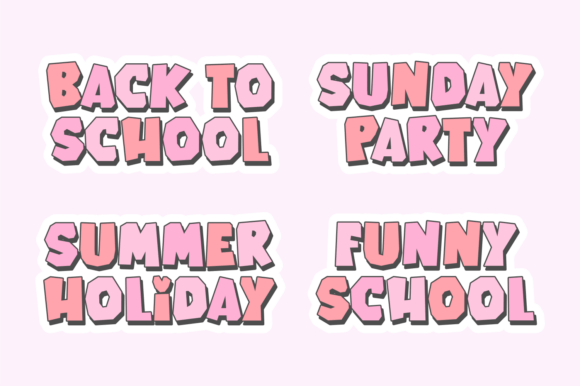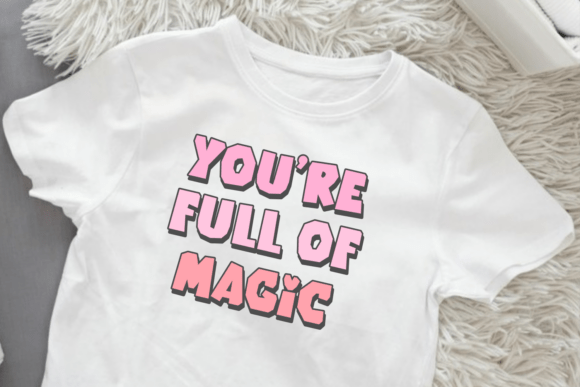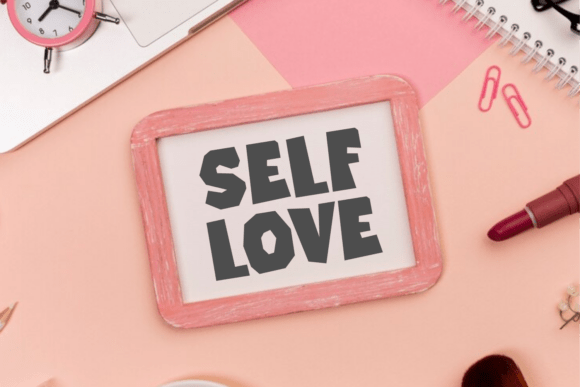
Disney Comic Font
About the Disney Comic Font
We are excited to introduce Disney Comic Font, a must-have typeface for any serious designer. Introducing Disney Comic: an entrancing display cartoon typeface saturated with charm and whimsy. This cheerful font seamlessly introduces a sense of jubilation and greatly elevates the mood of your design, making it the perfect fit for a multitude of mediums. Allow its effervescent charisma to heighten the allure of your greeting cards, or infuse an element of joy into your t-shirt designs. Disney Comic bestows a sprinkle of joviality on school logos and online enterprises, and asserts a dynamic presence on social platforms. Amplify holiday festivities with an extra dose of merriment provided by this font. Envelop your designs in the refreshing luminosity Disney Comic brings, and let your creations tell a story as delightful as a vibrant comic strip.
Disney Comic Font Usage Examples
Disney Comic Font Example